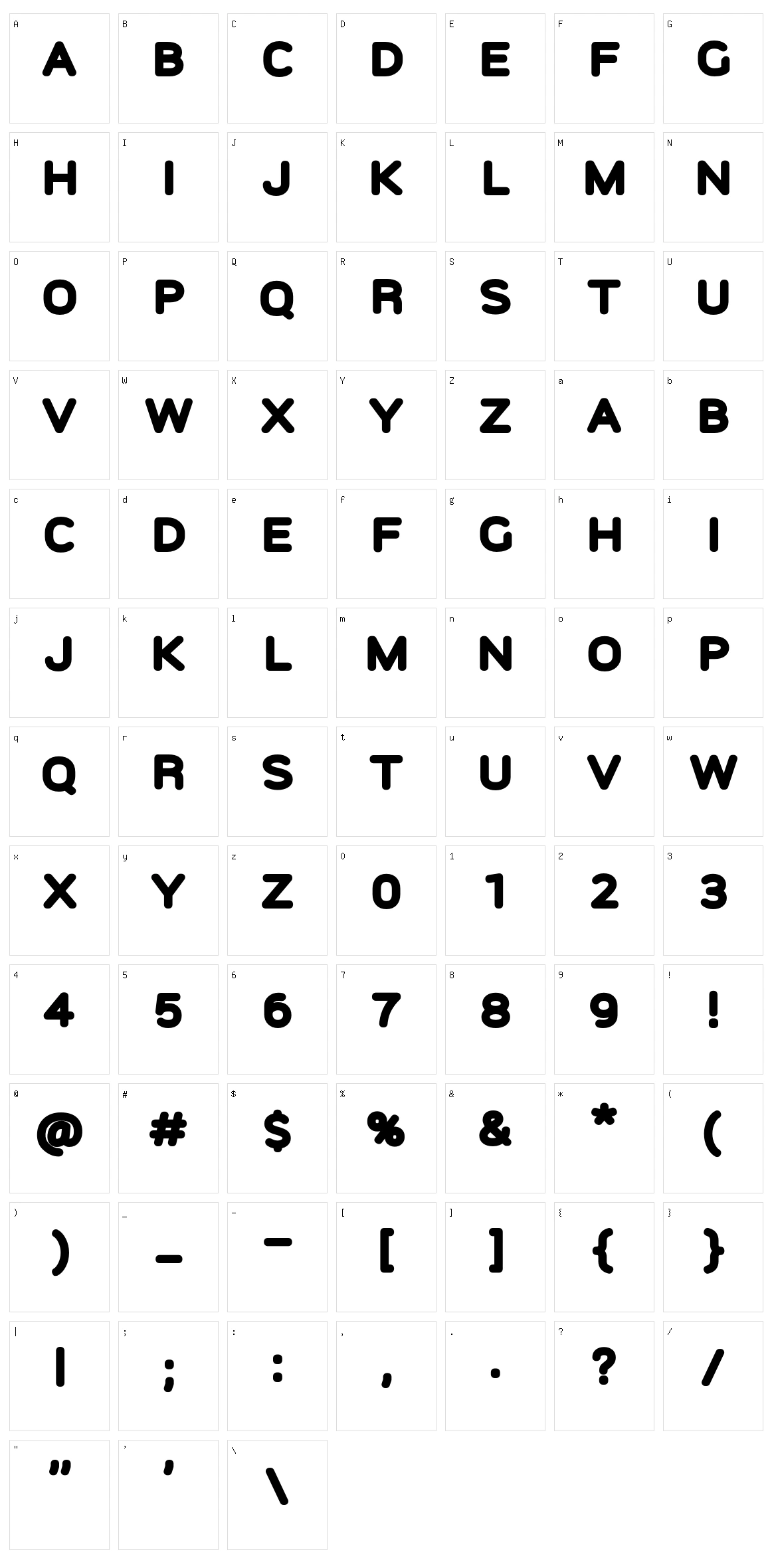
The free font Figno is carefully designed by Iordanis Passas, showcasing a thoughtful balance of creativity and usability and falls under the Sans serif font style. When you download the ZIP file, it contains only 22.72 KB of font files, making it lightweight and quick to download. Please review the license details below to understand permitted usage and distribution rights. If license information is not available, we recommend using this font for personal projects only or contacting the author directly for commercial usage permissions.